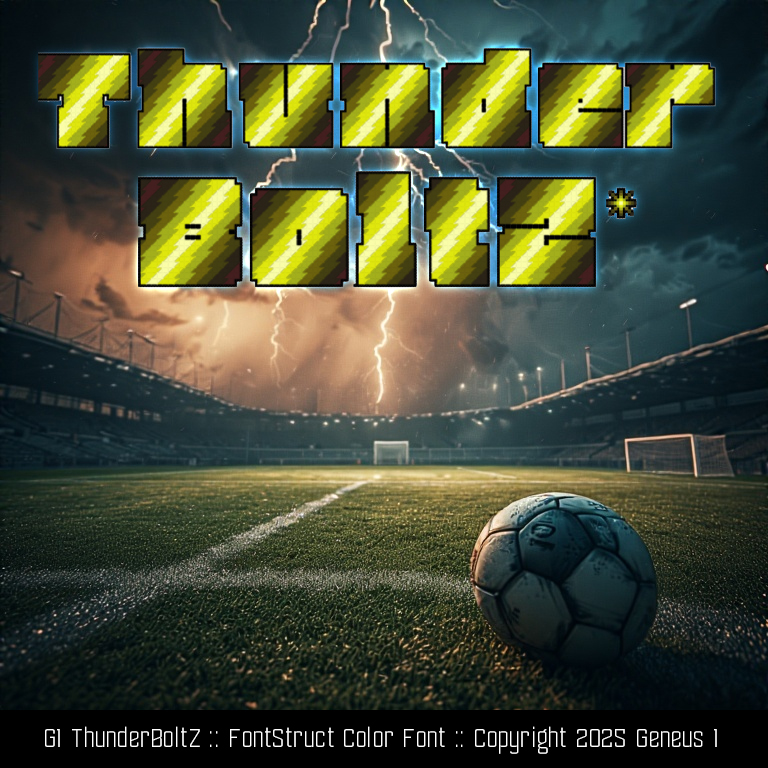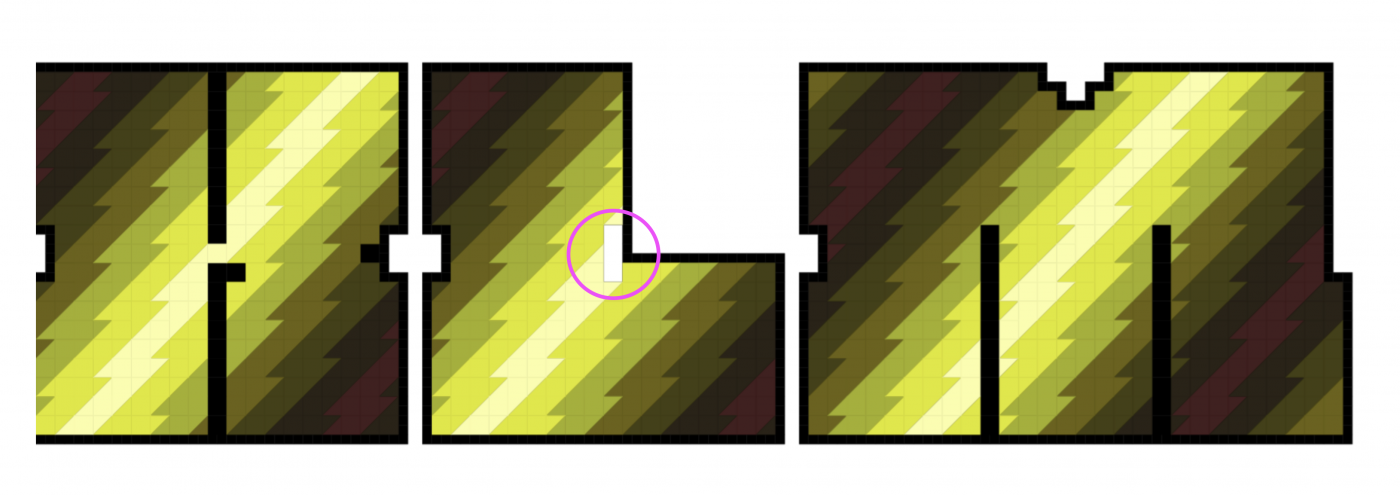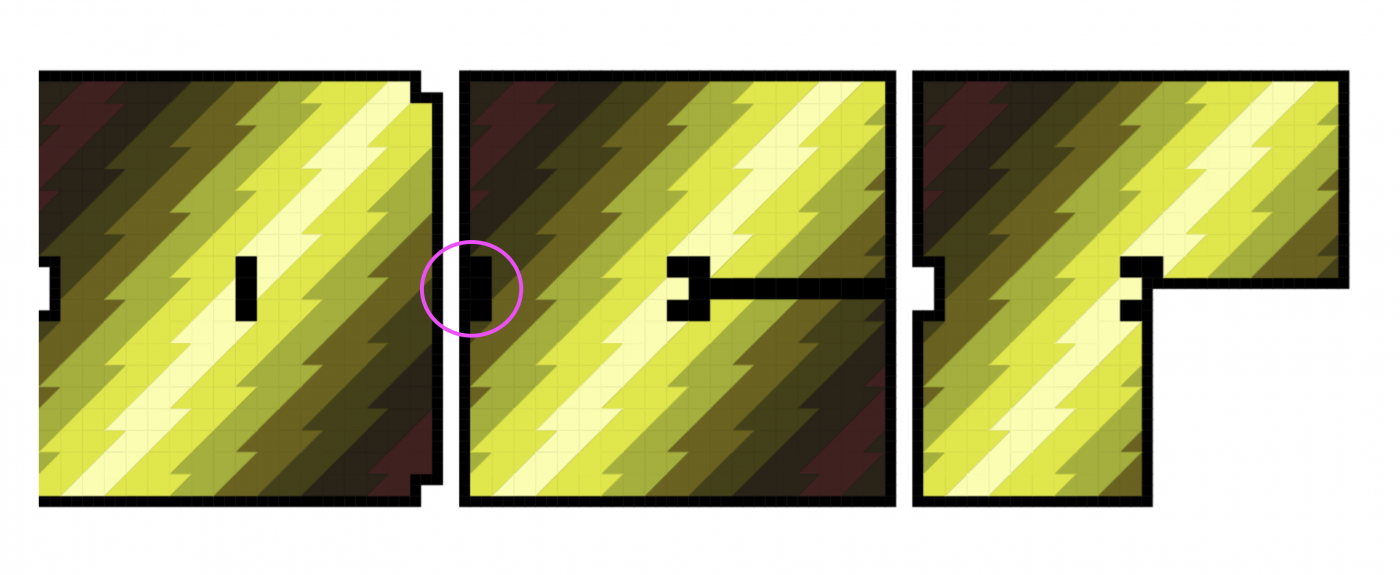
• What? There's a ColorComp? Great excuse to release the Marvel Movie font that I wasn't able to finish in time.
Solid and electrizing!
Btw, the "L" needs a few black bricks.
Great colour transition. All eight layers are put to work. 10/10
Sorry. And 2 or 3 extra bricks on the center left side of the "E".
@elmo  What? I don't know what you're talking about.
Coooool!
Congratulations, Master!
Wow, these color's are like magic!
the first sample's background was ai generated: why would you put two goals in adjacent sides, if there weren't goals in all four? and why is the ball weirdly made??